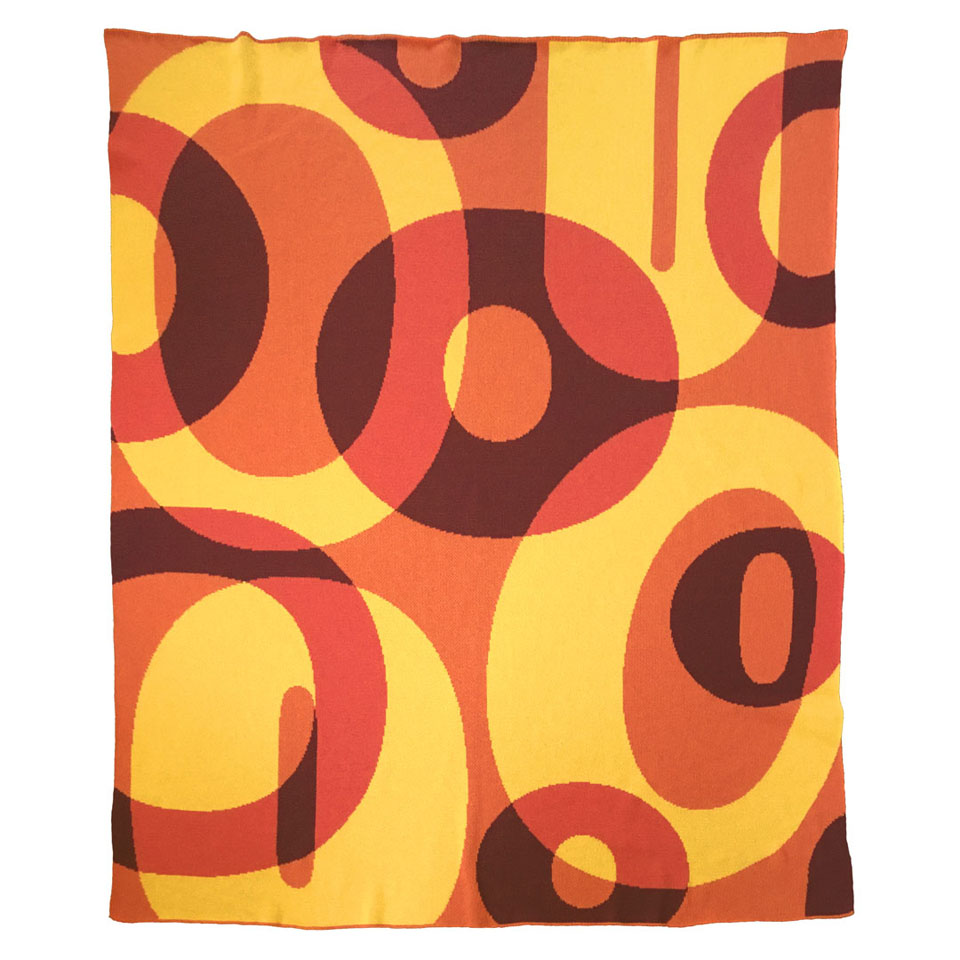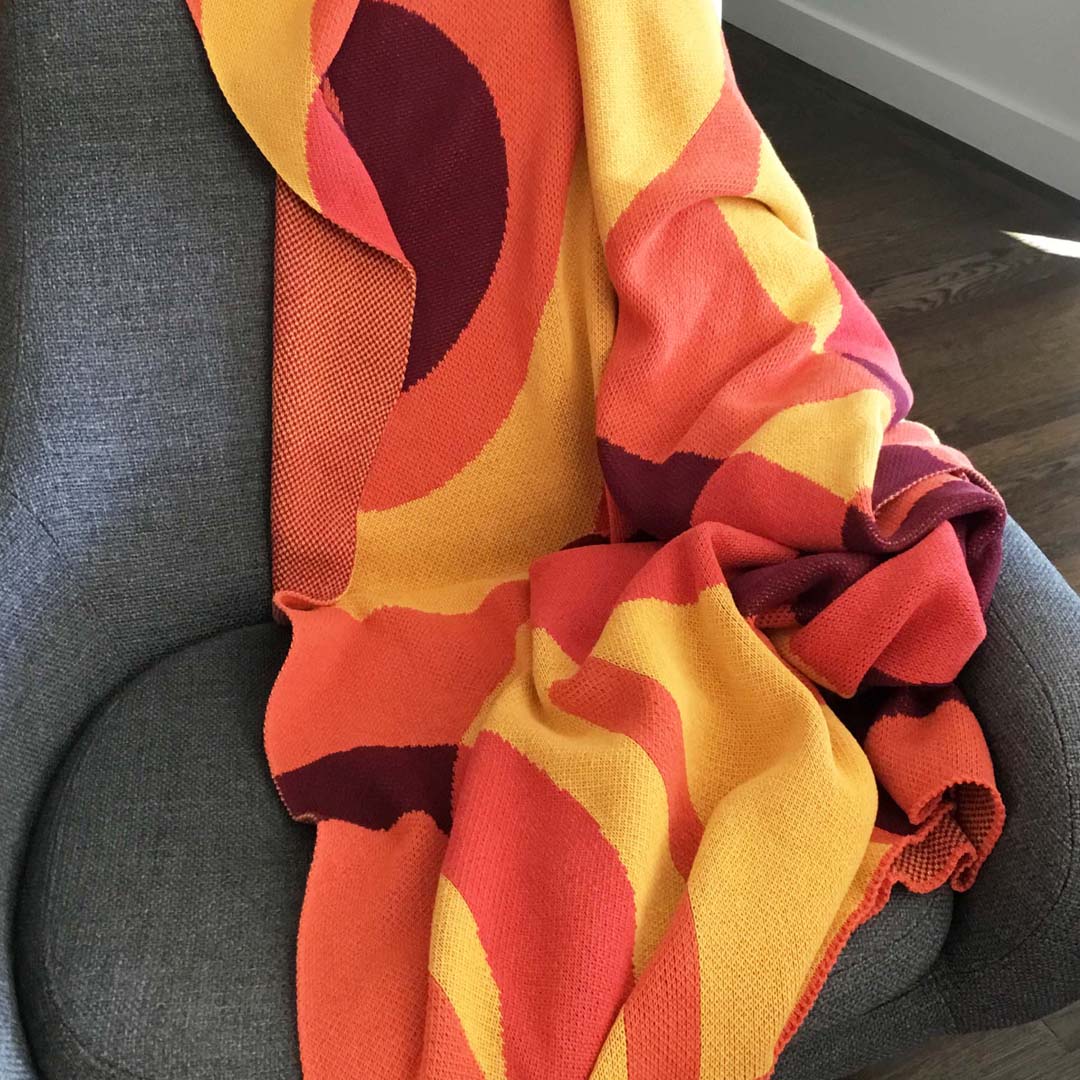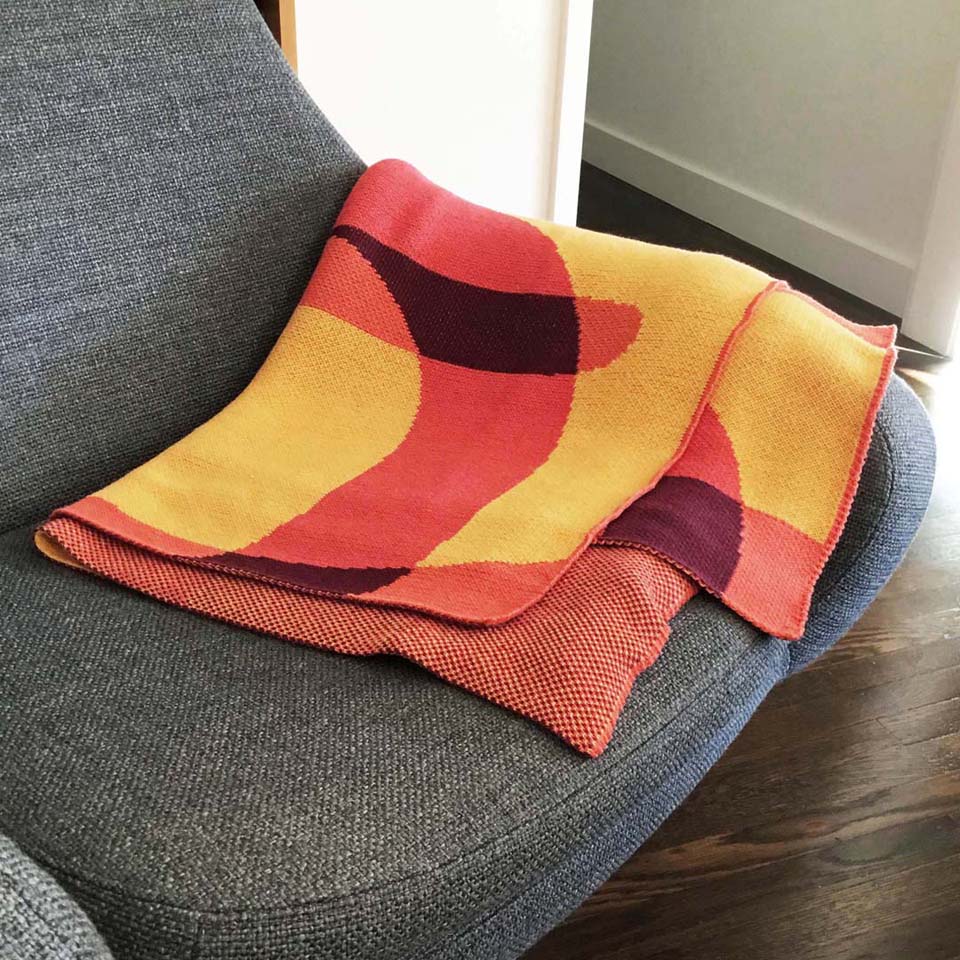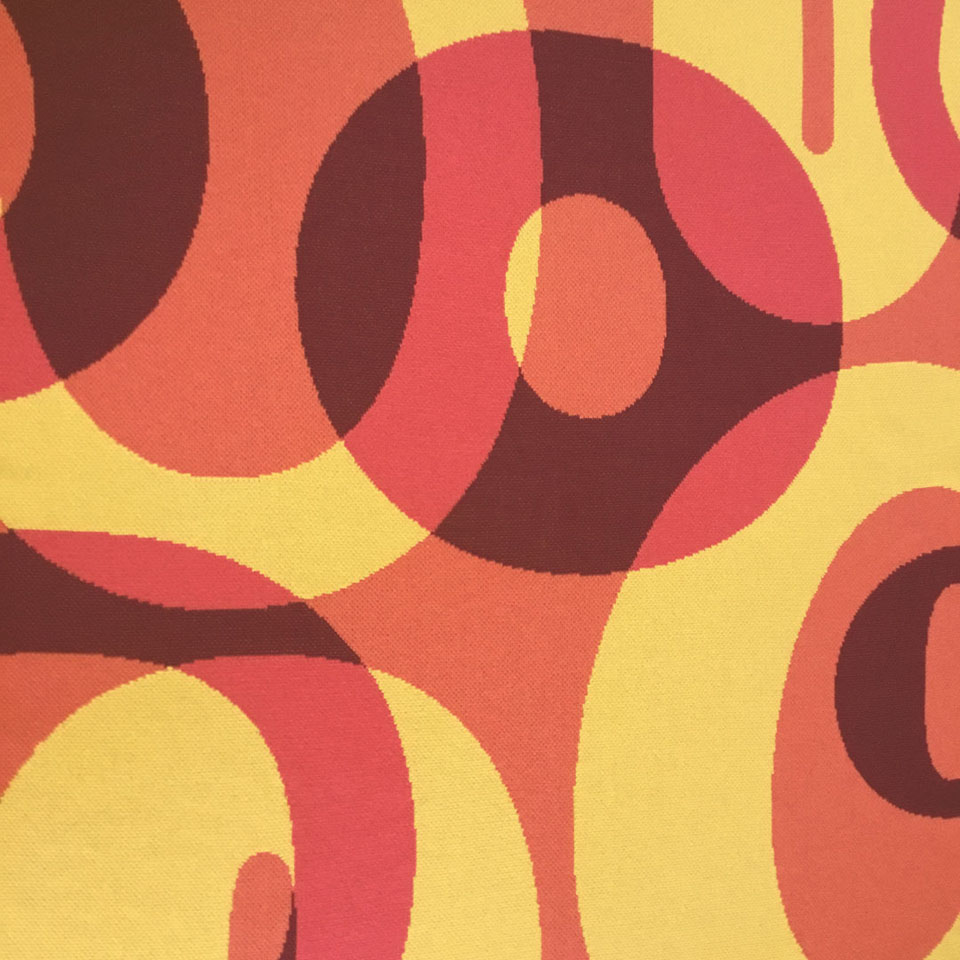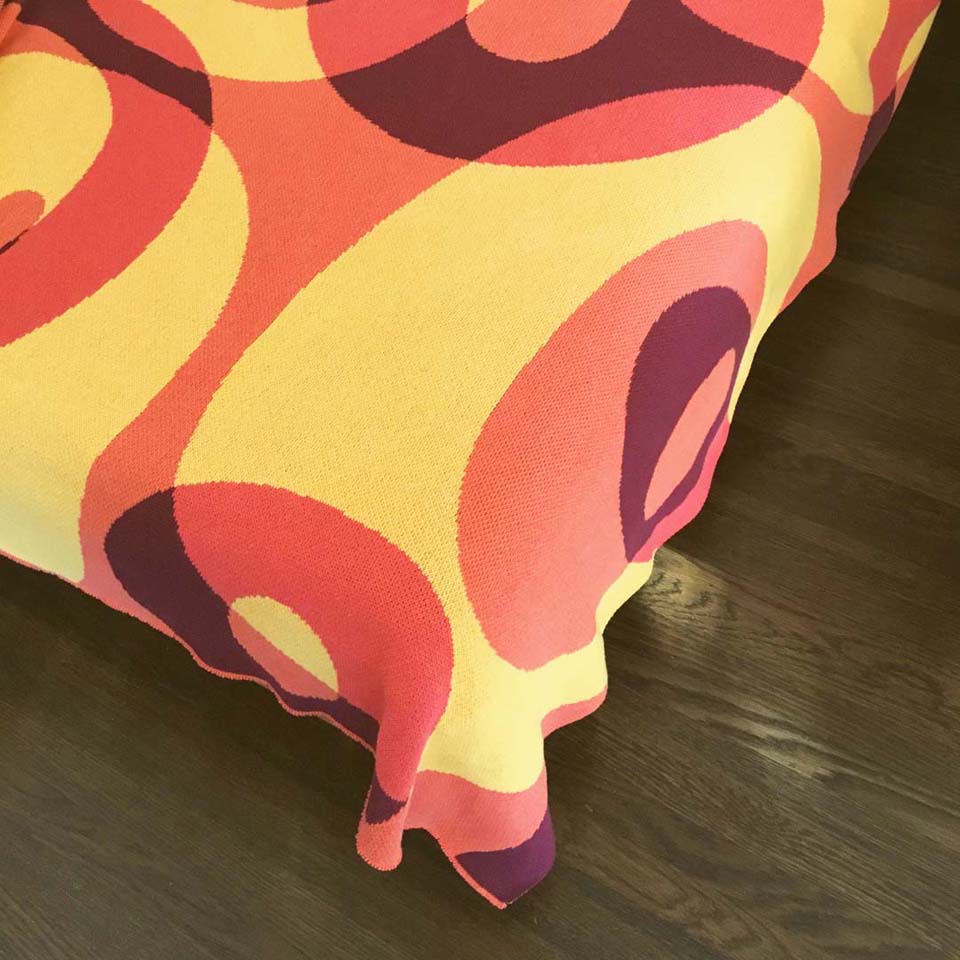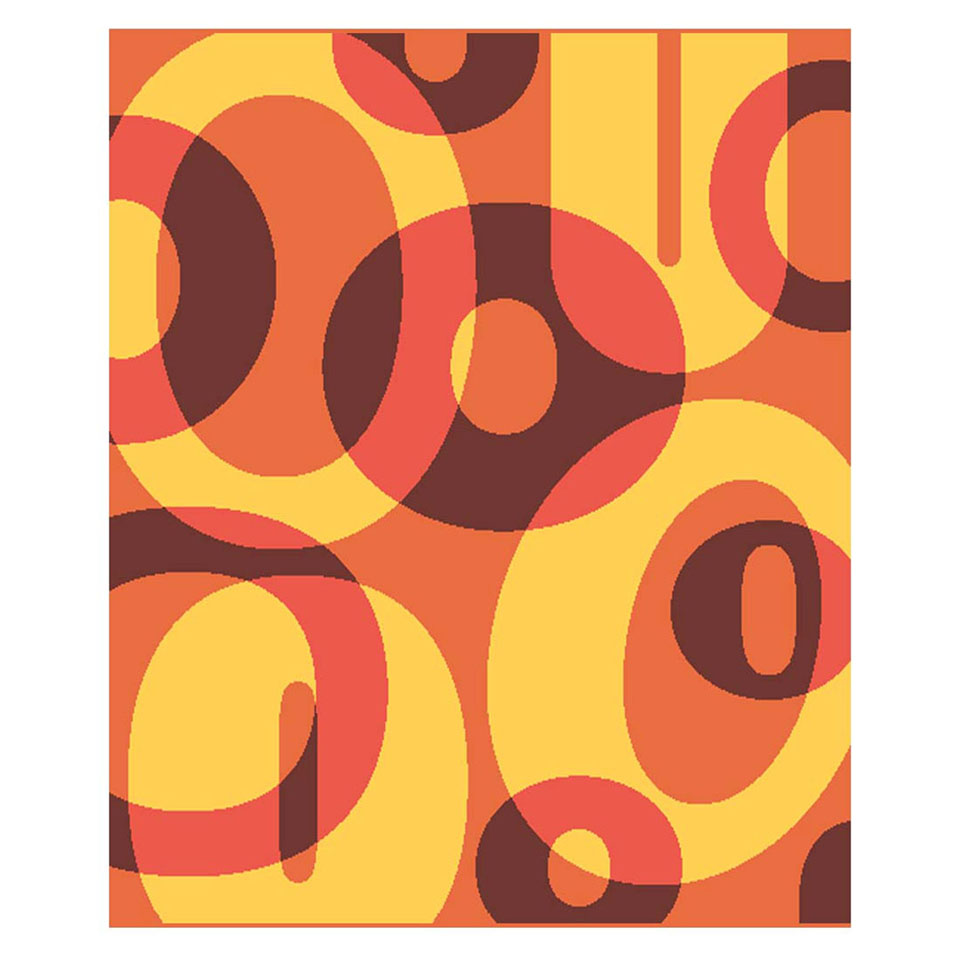
Letter “O” Throw Blanket
This comfy throw blanket features various forms of the letter “O” floating in space.
Orange, yellow and maroon design on front, stippled herringbone pattern on back.